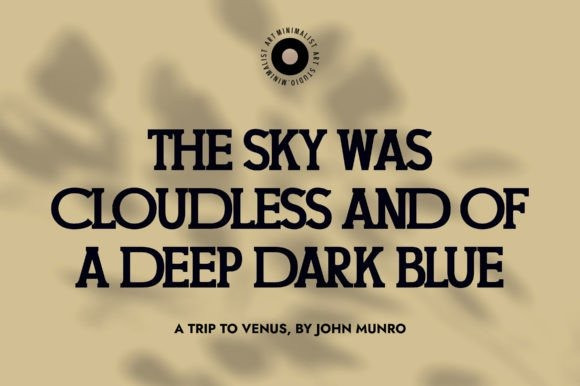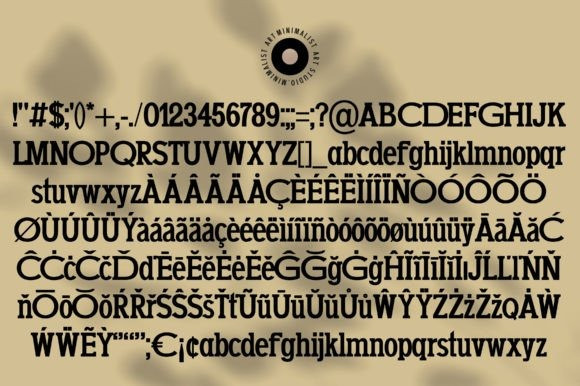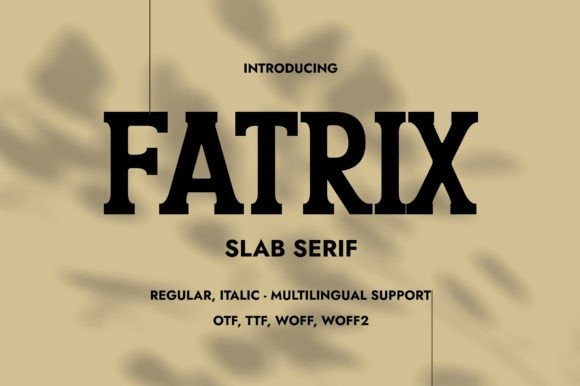
Fatrix Font
Fatrix Font is ​​a bold slab serif typeface, a strong and dynamic typeface that will elevate any design project. The bold slab serif design of this font is perfect for creating impressive titles, headlines and logos. Its thick and solid strokes convey a sense of confidence and authority, making it ideal for businesses in industries such as finance, technology and fashion.